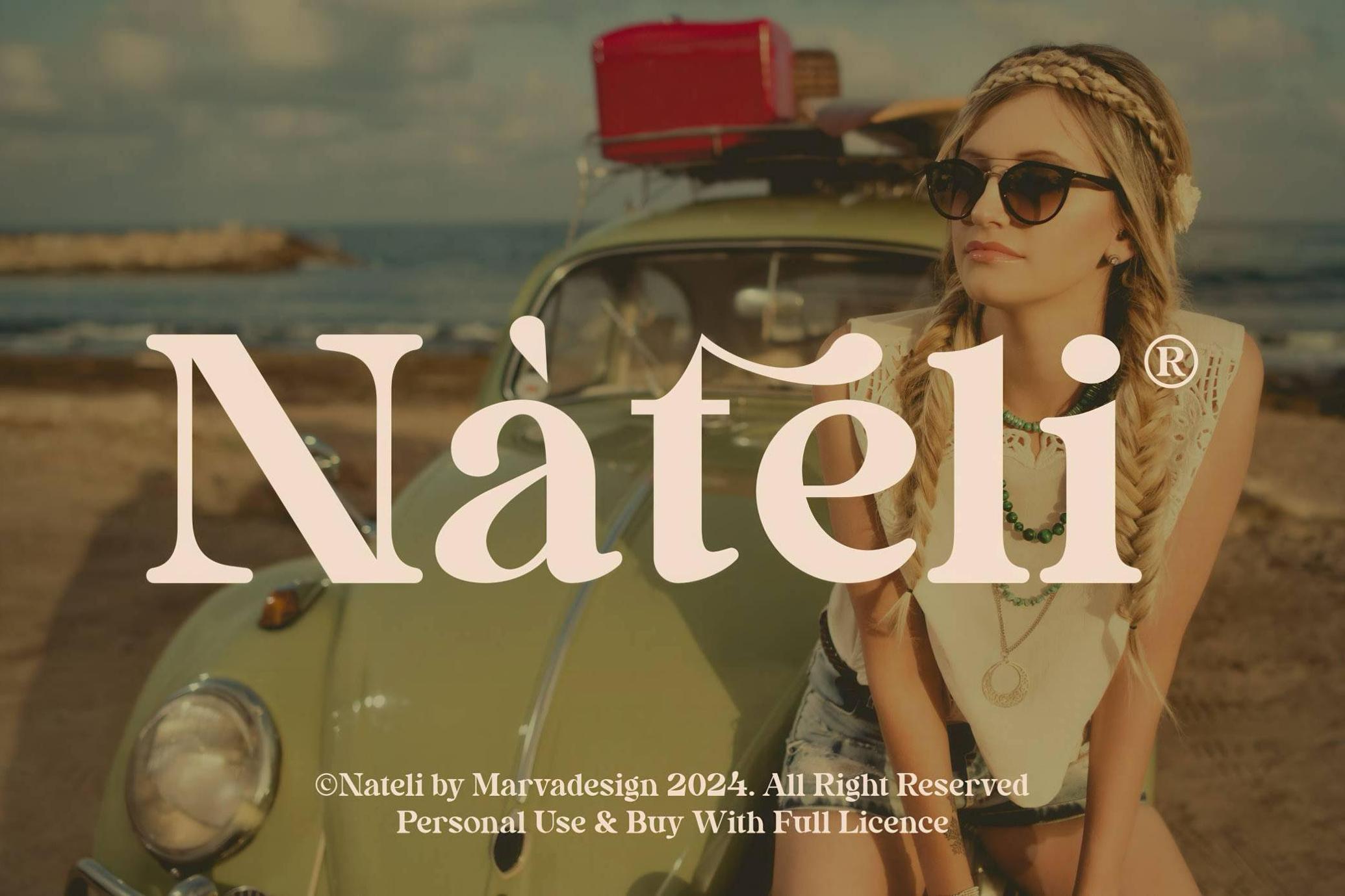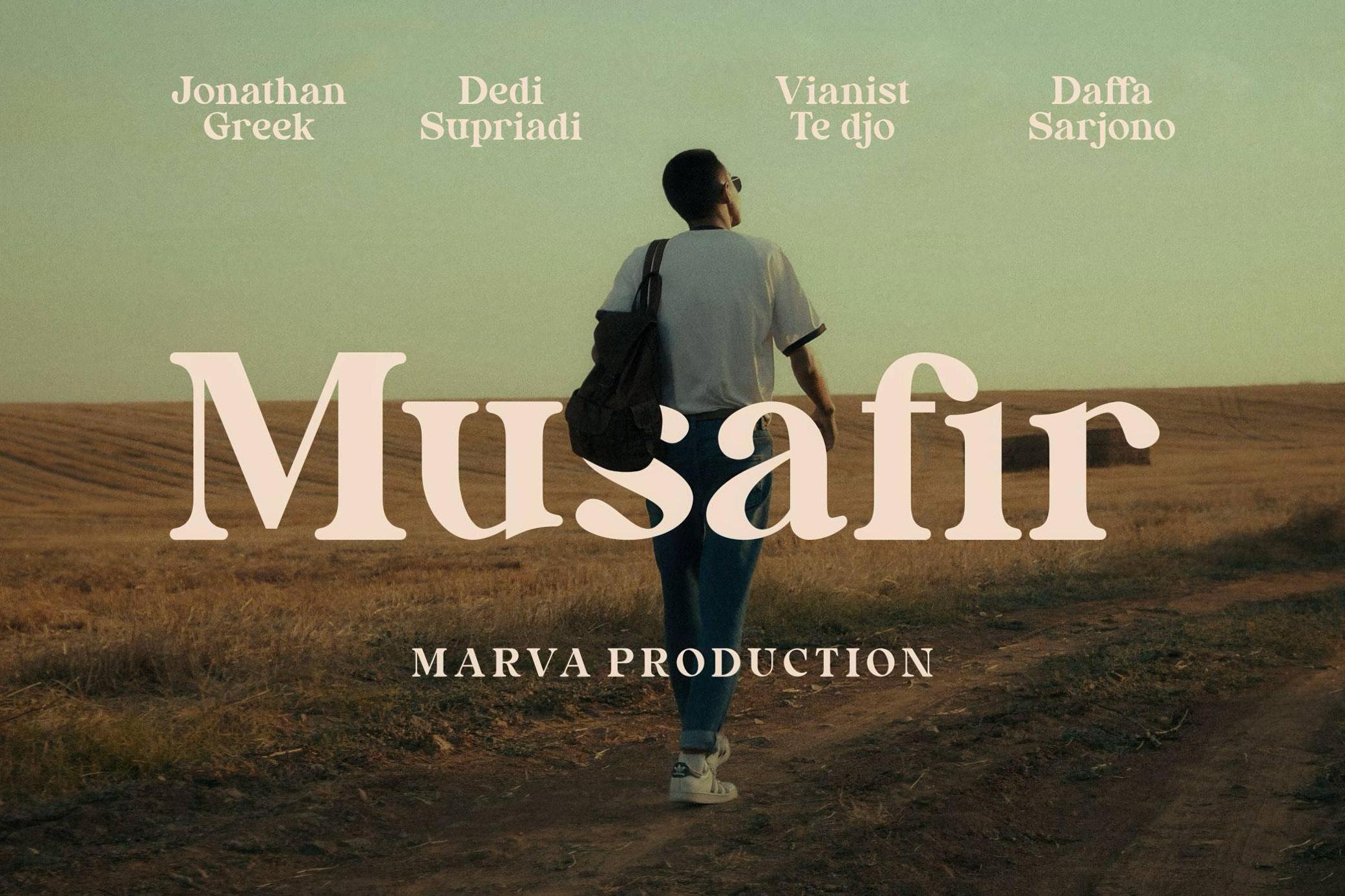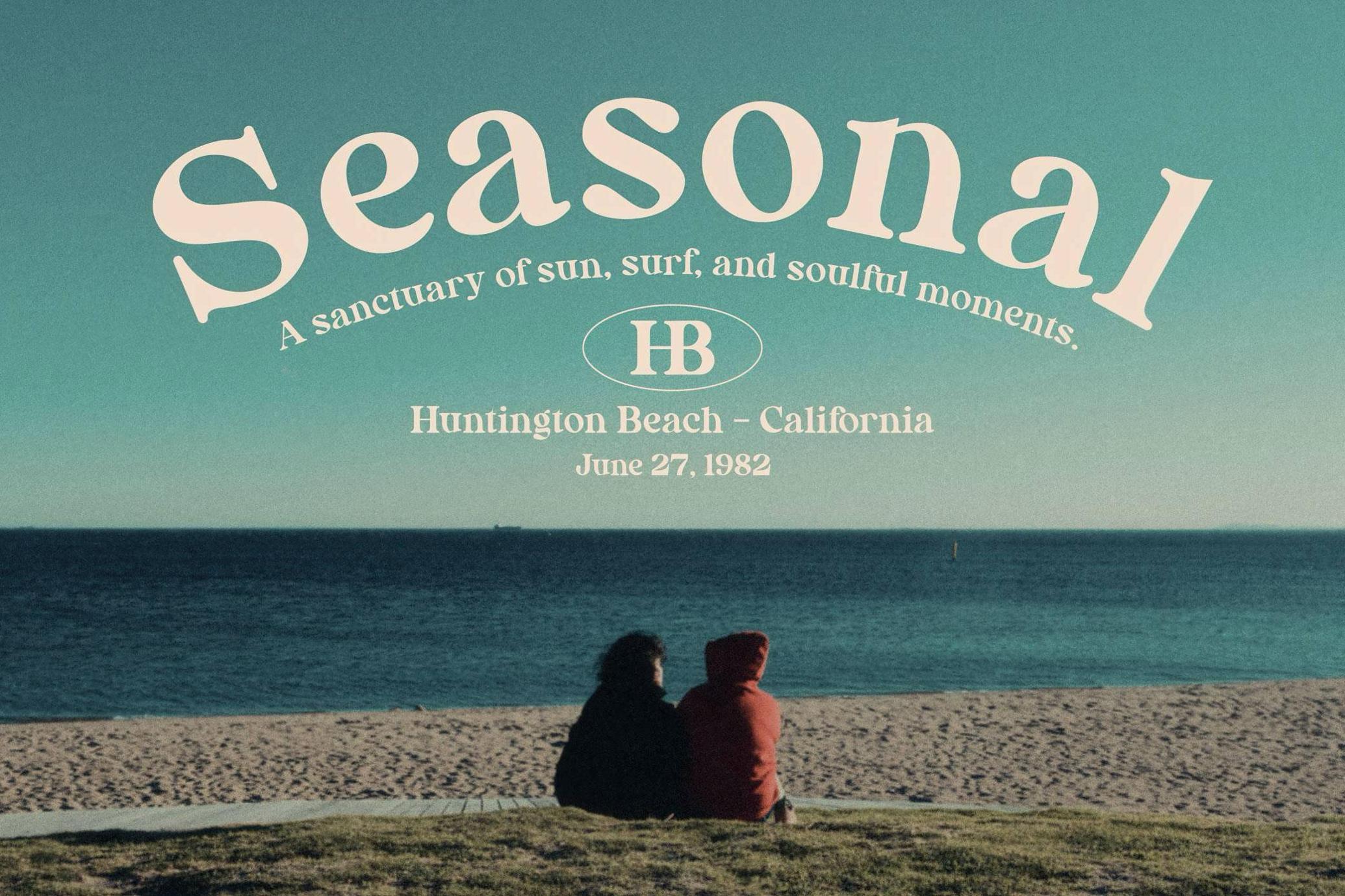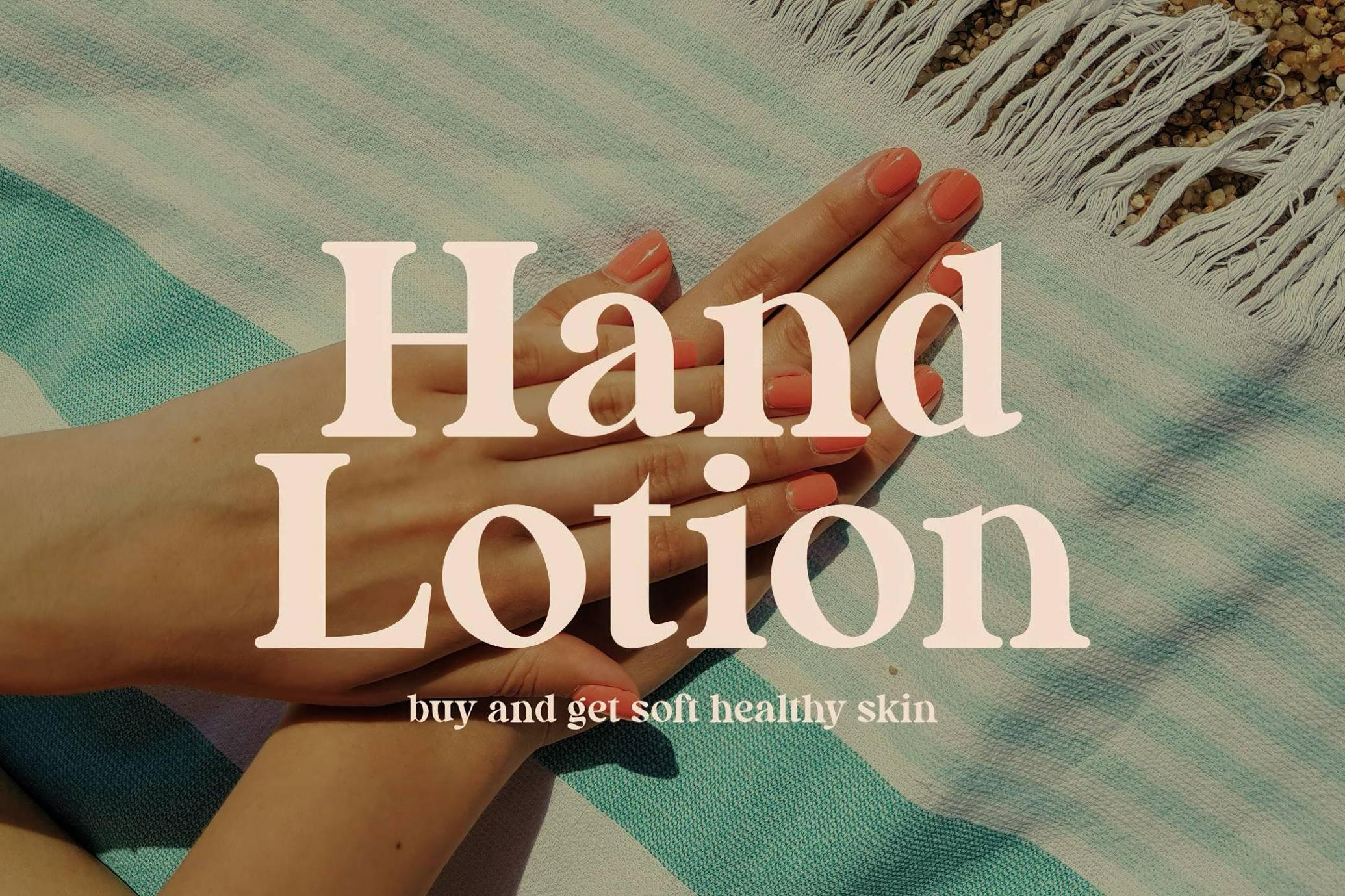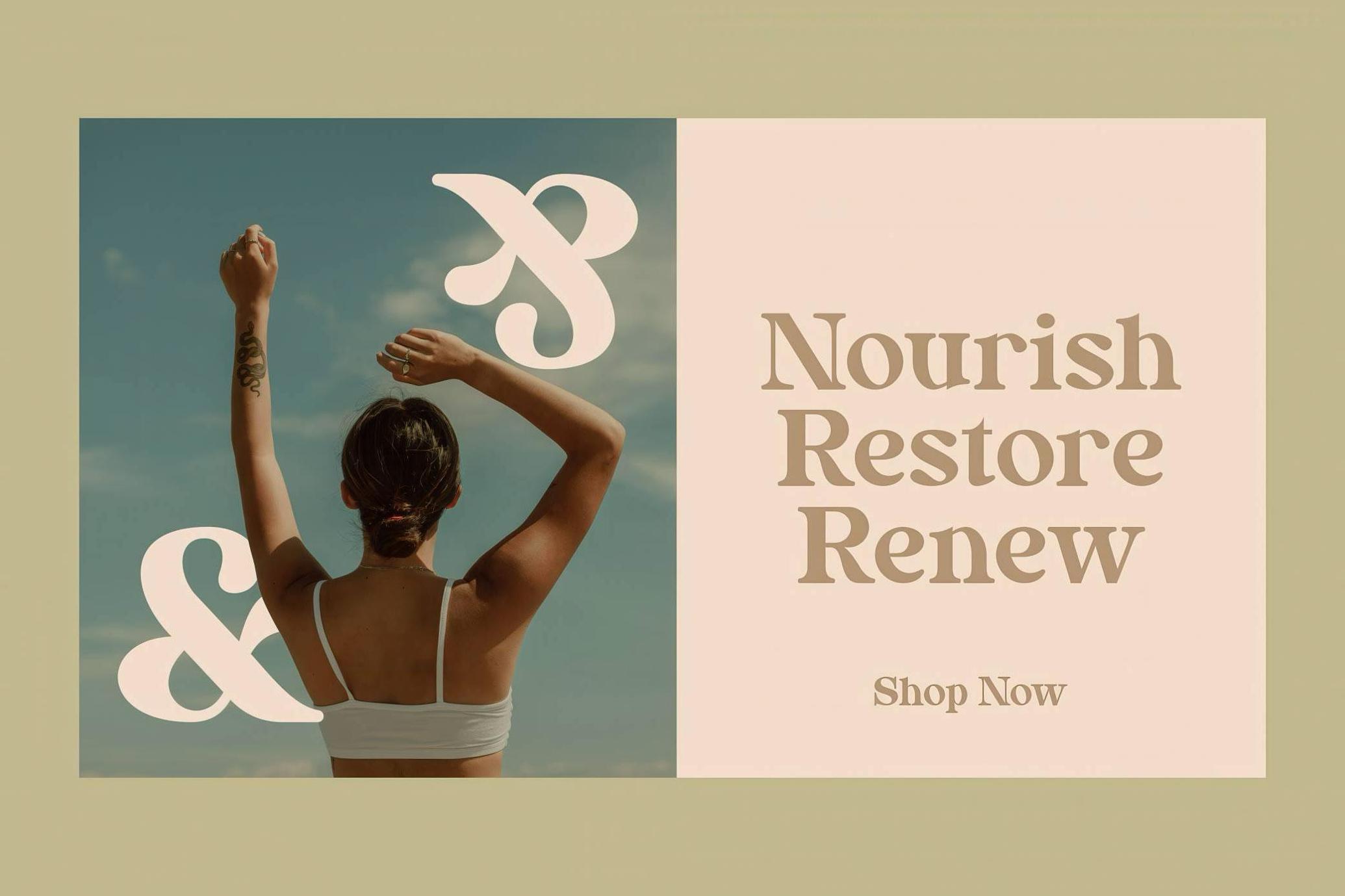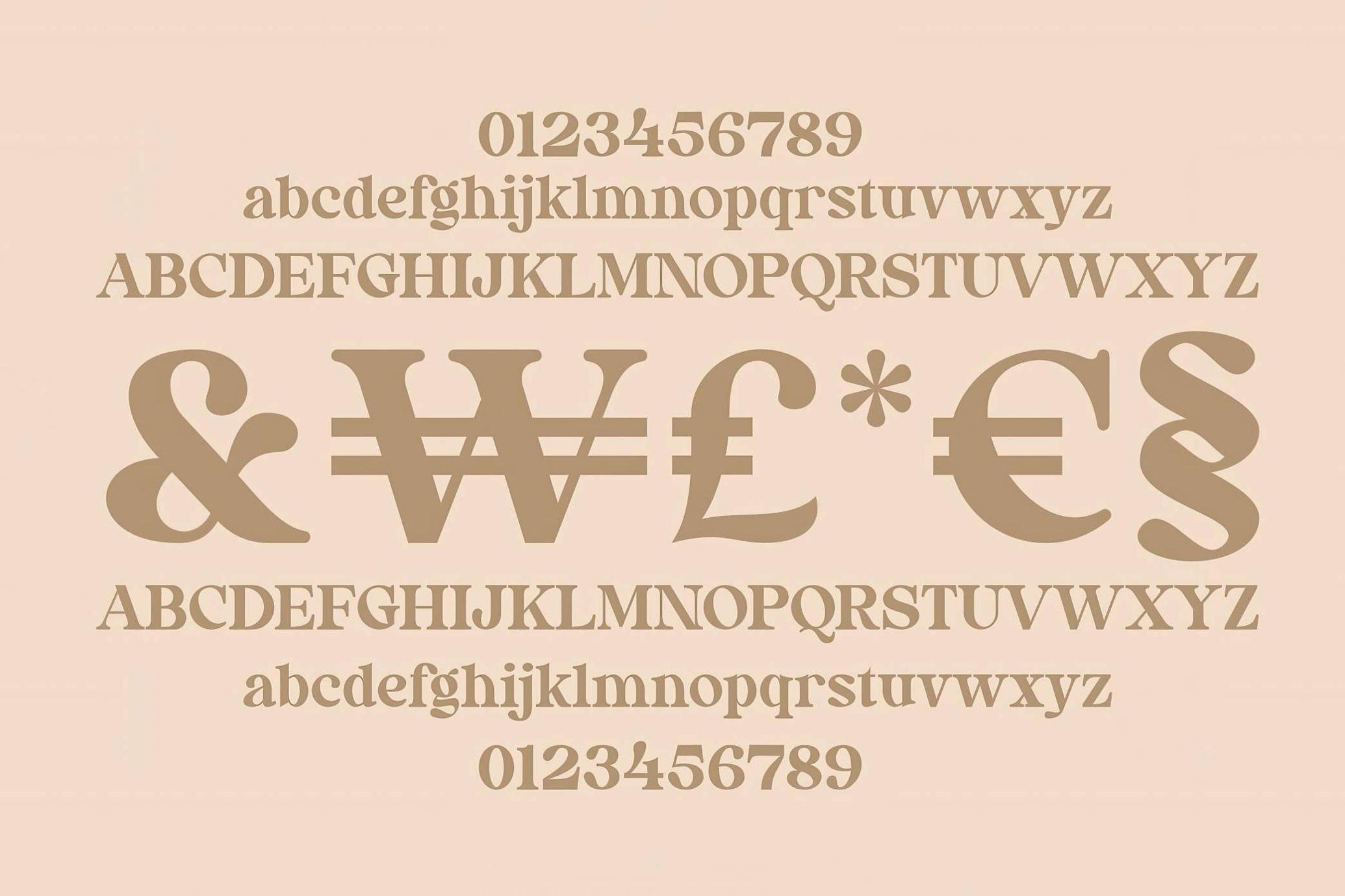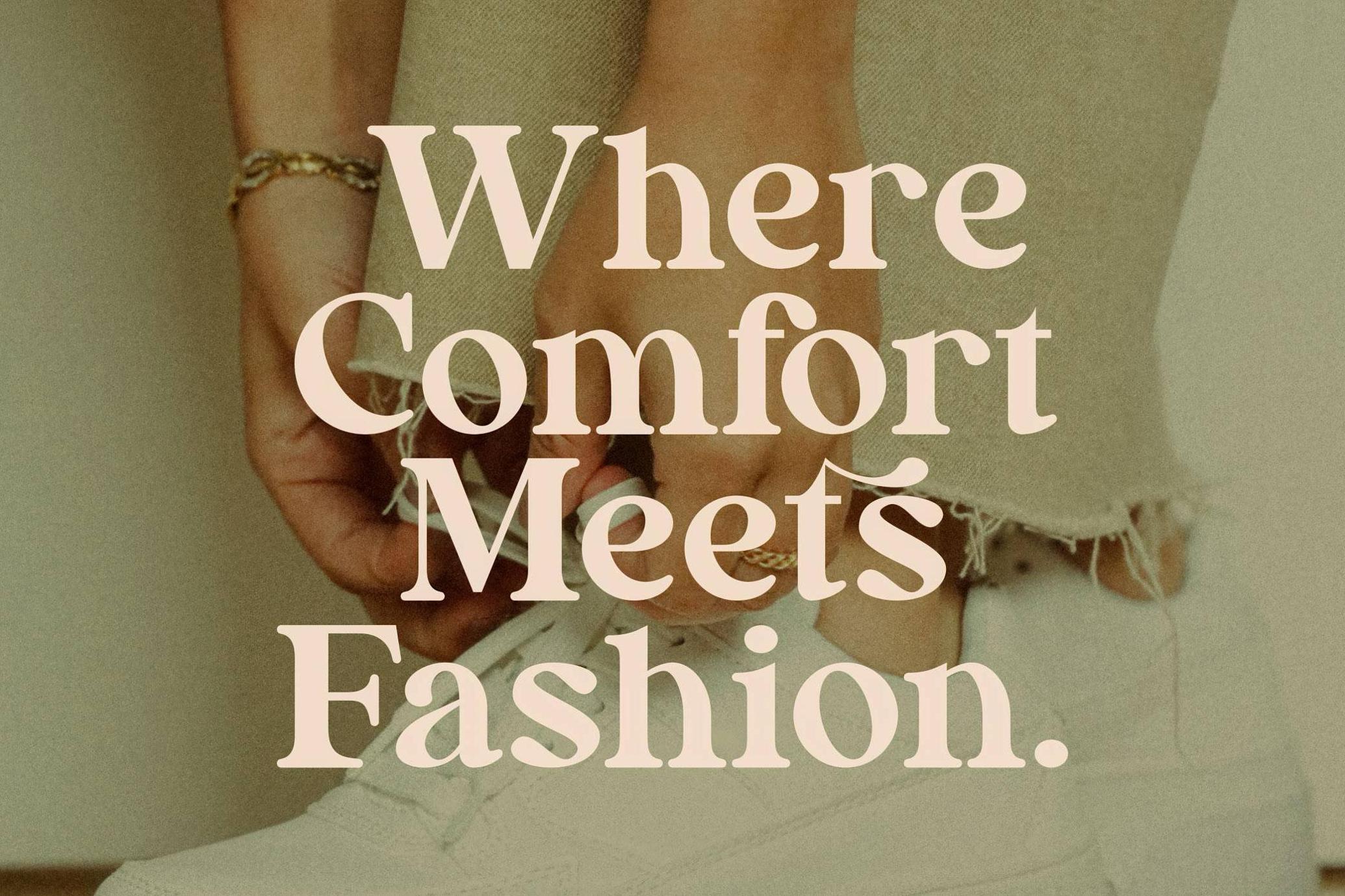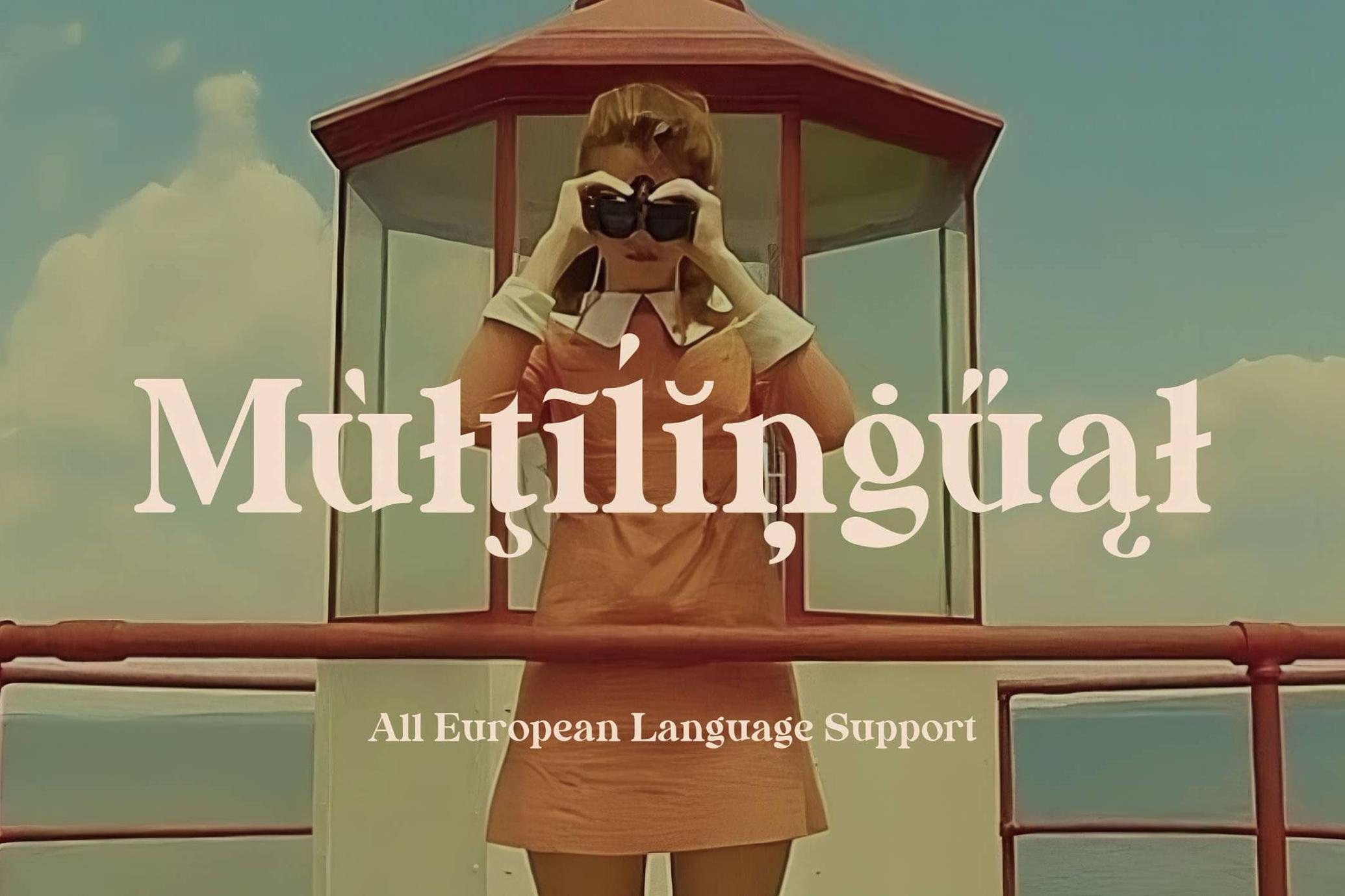
Nateli — Display Serif Font
Like a linen dress on a sun-drenched coast, Nateli walks the line between relaxed charm and timeless elegance. Every glyph carries its own quiet drama. This display serif holds your gaze with soft curves, confident contrast, and sculpted ligatures that feel custom-cut for high-end headlines. With alternates and multilingual support, it’s built to bring polish and poise to brand identities, magazine titles, wedding collateral, and anywhere you want a touch of cinematic grace.